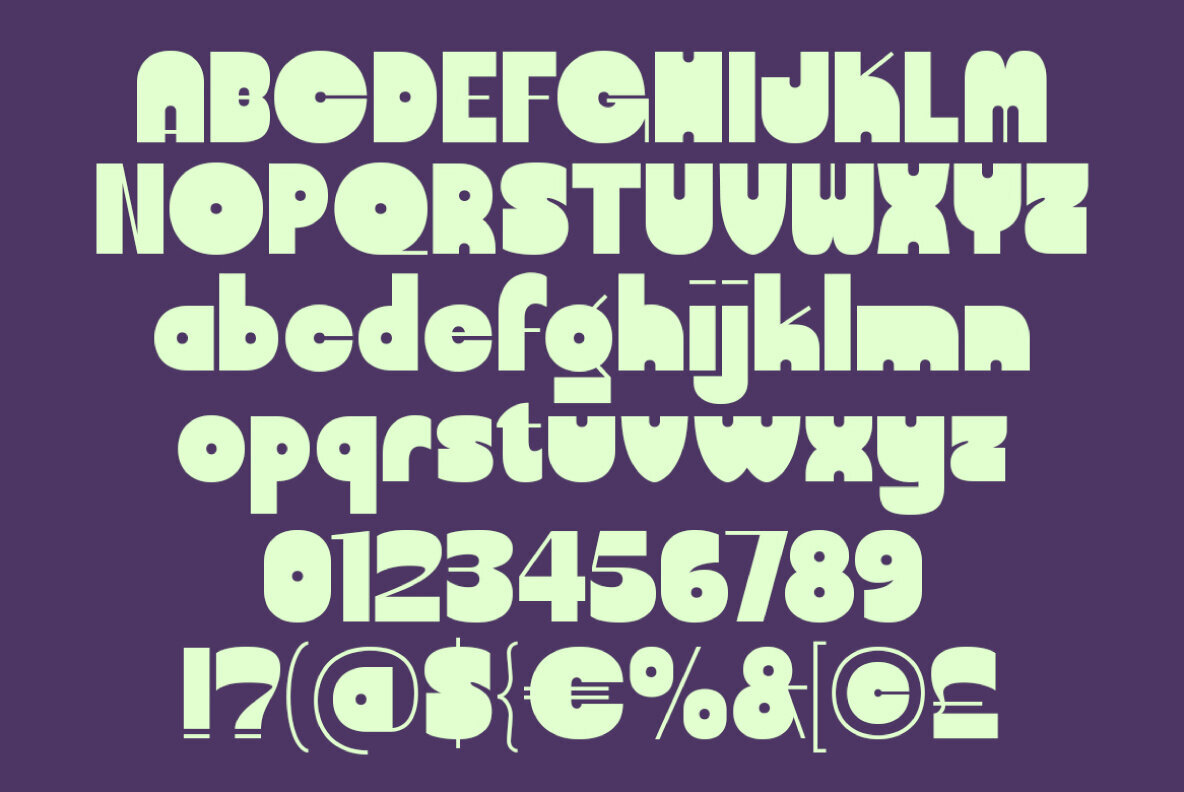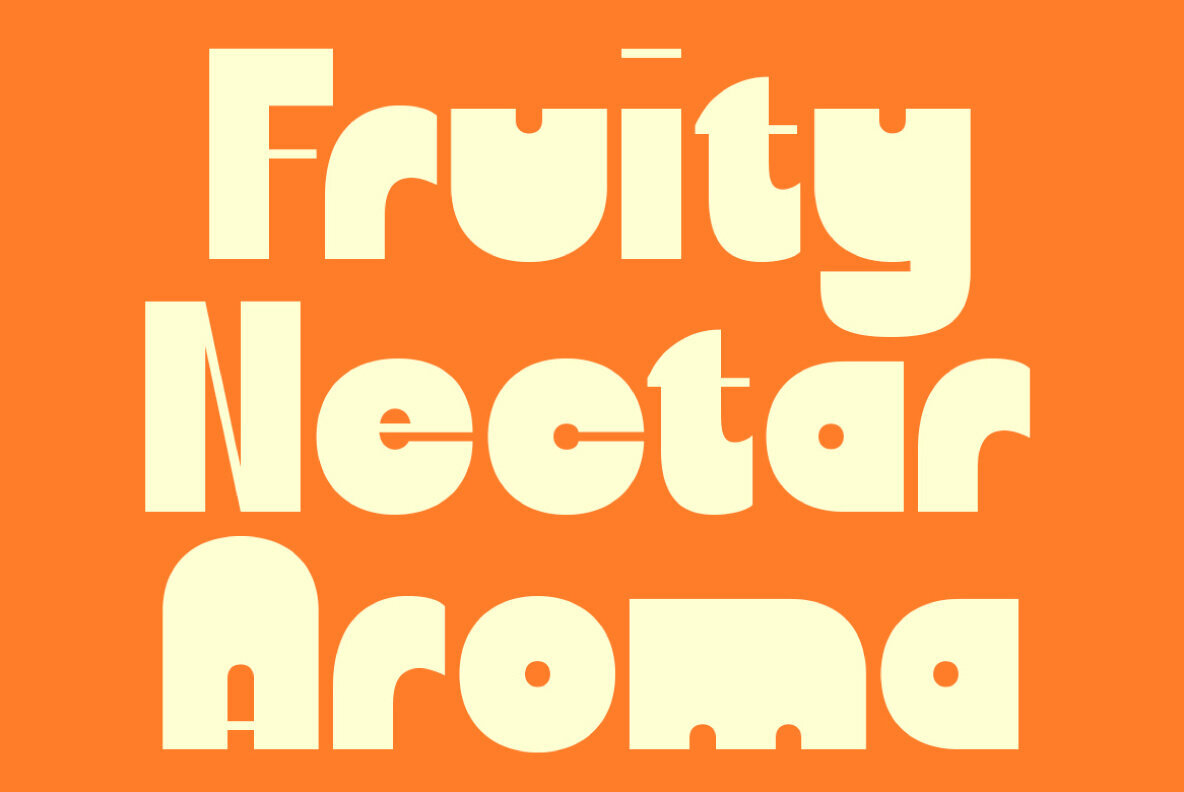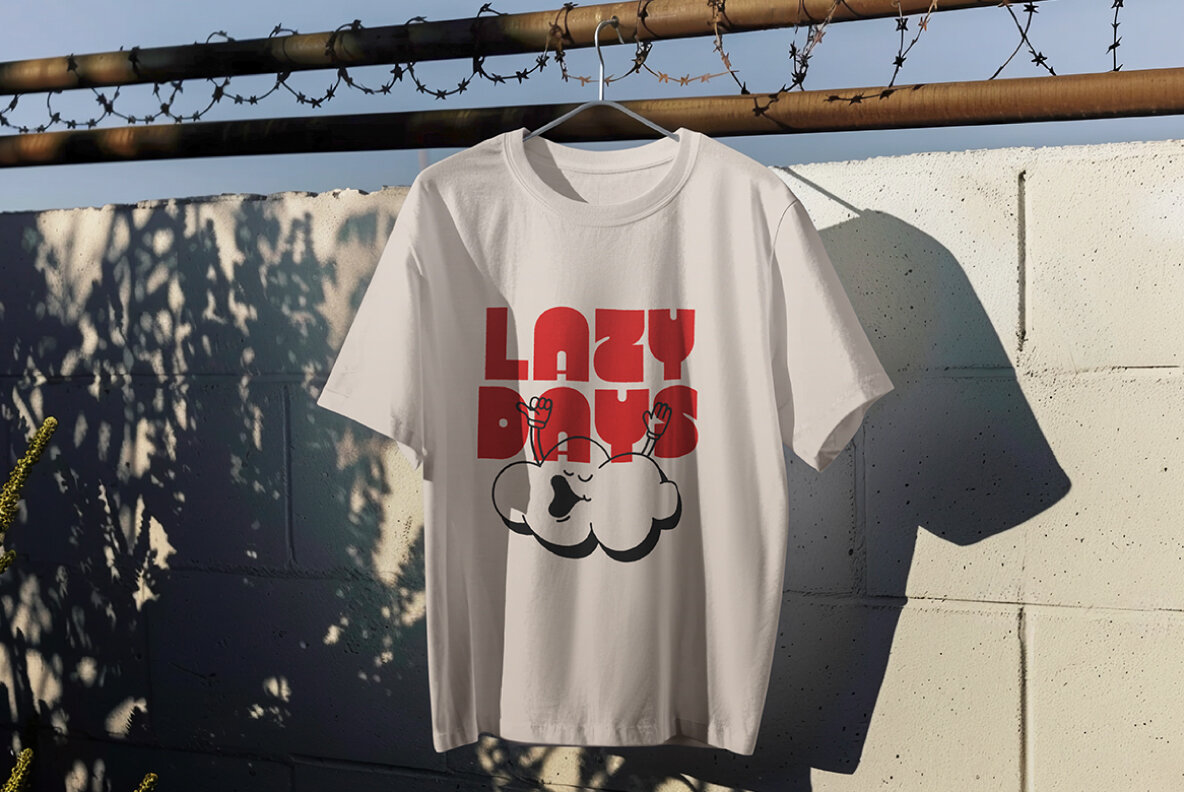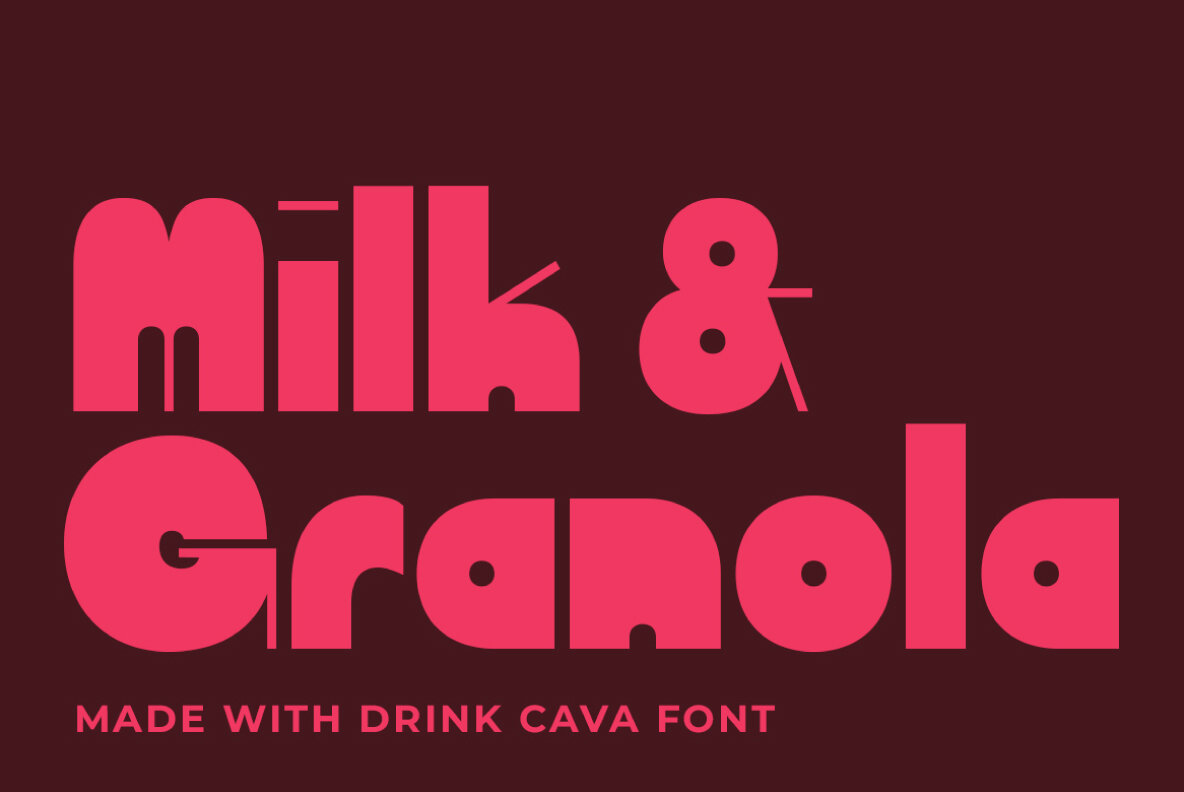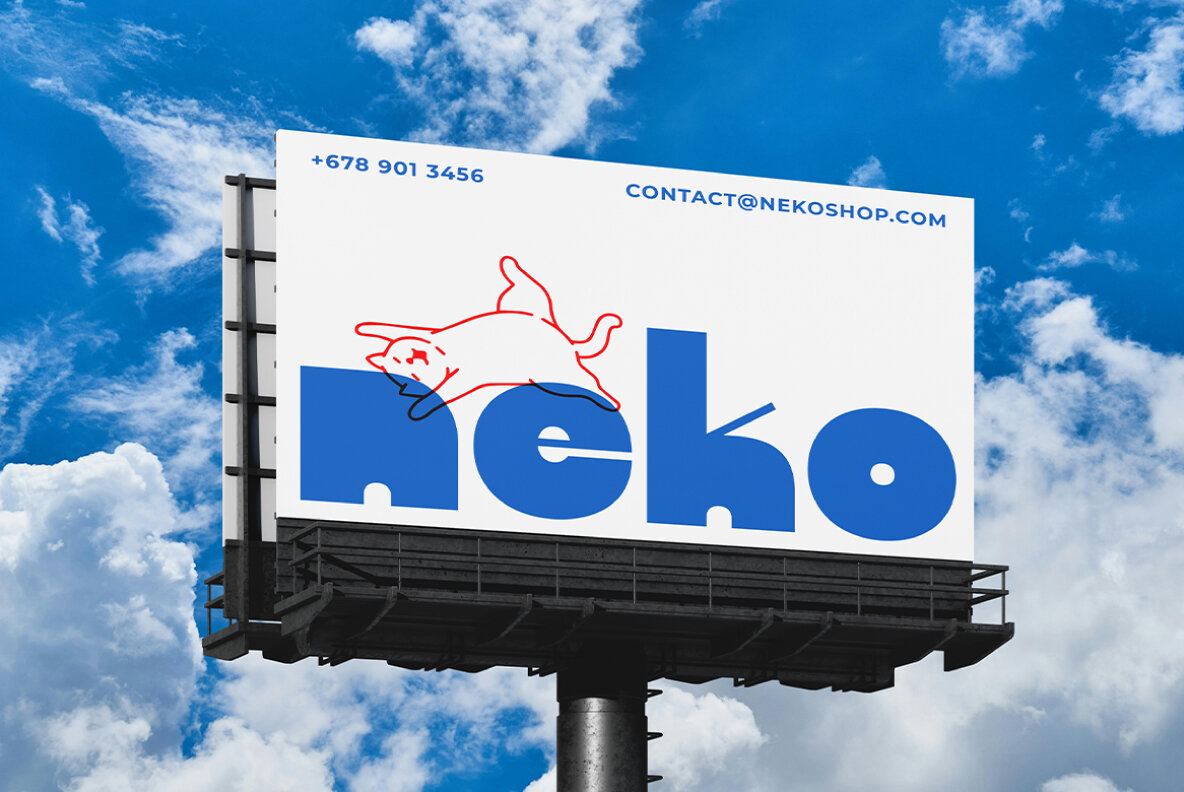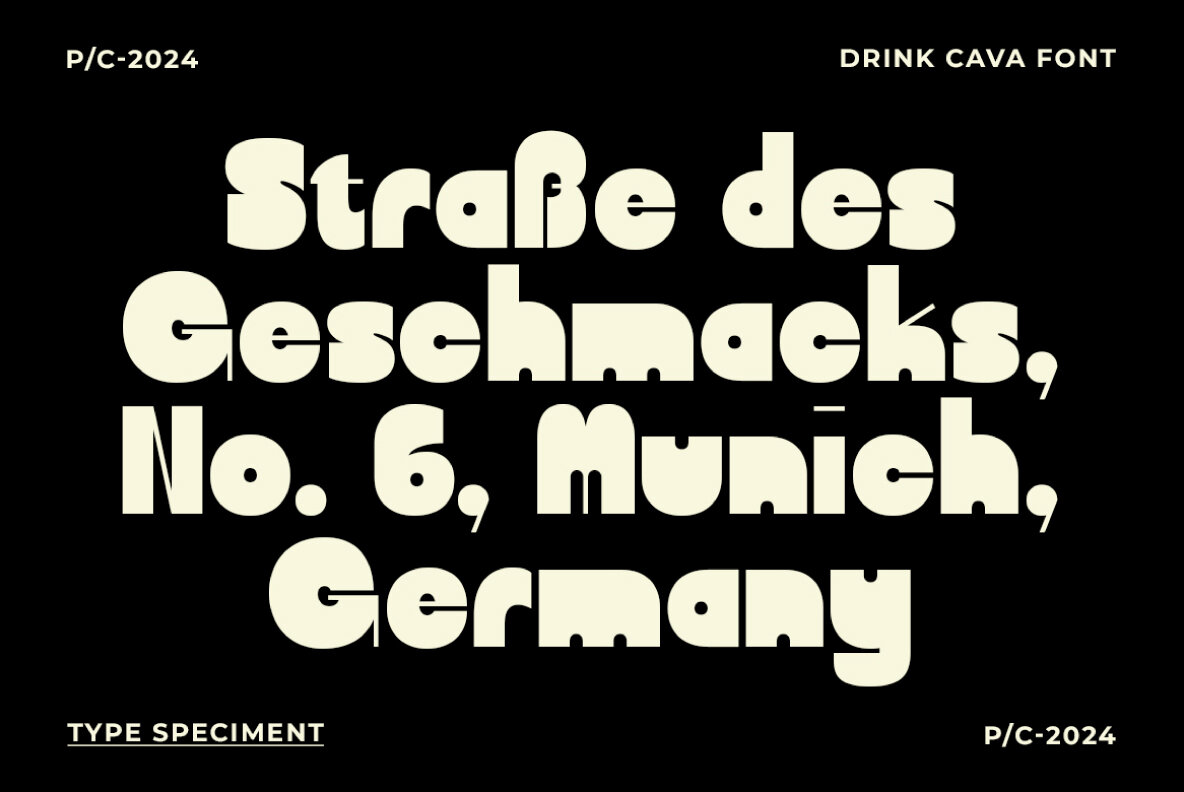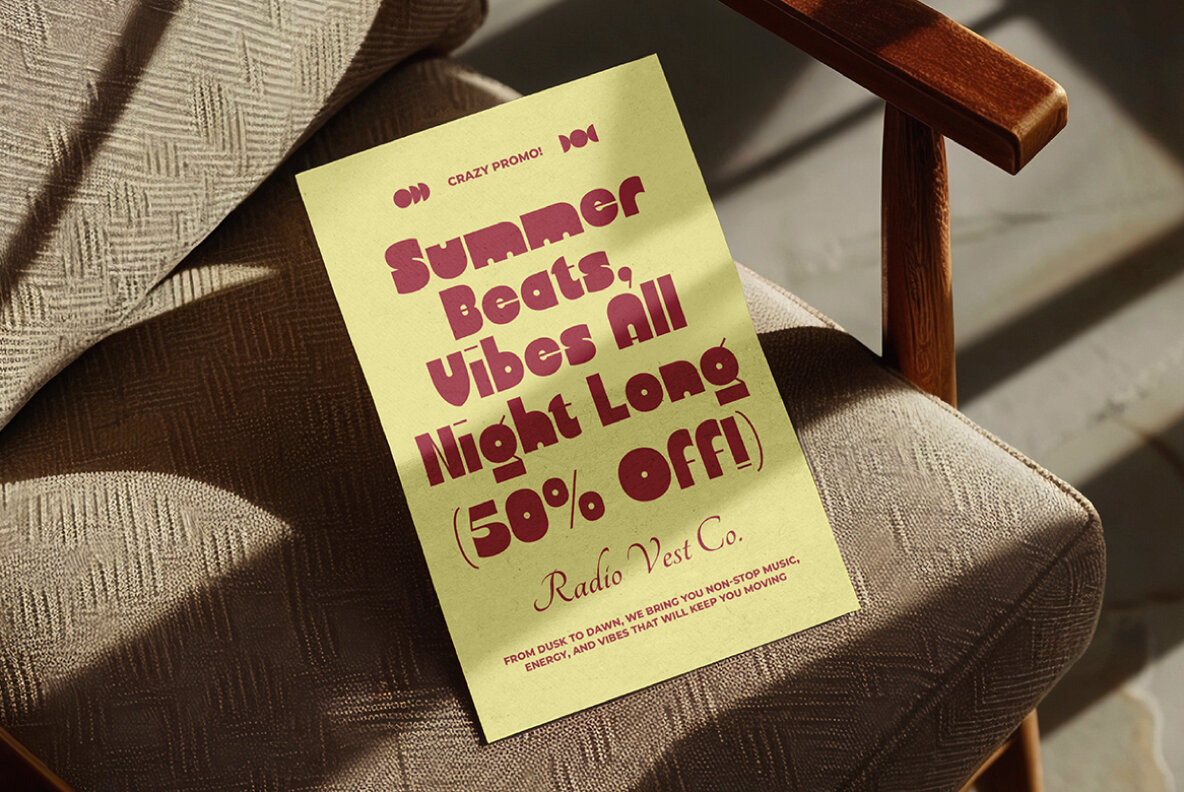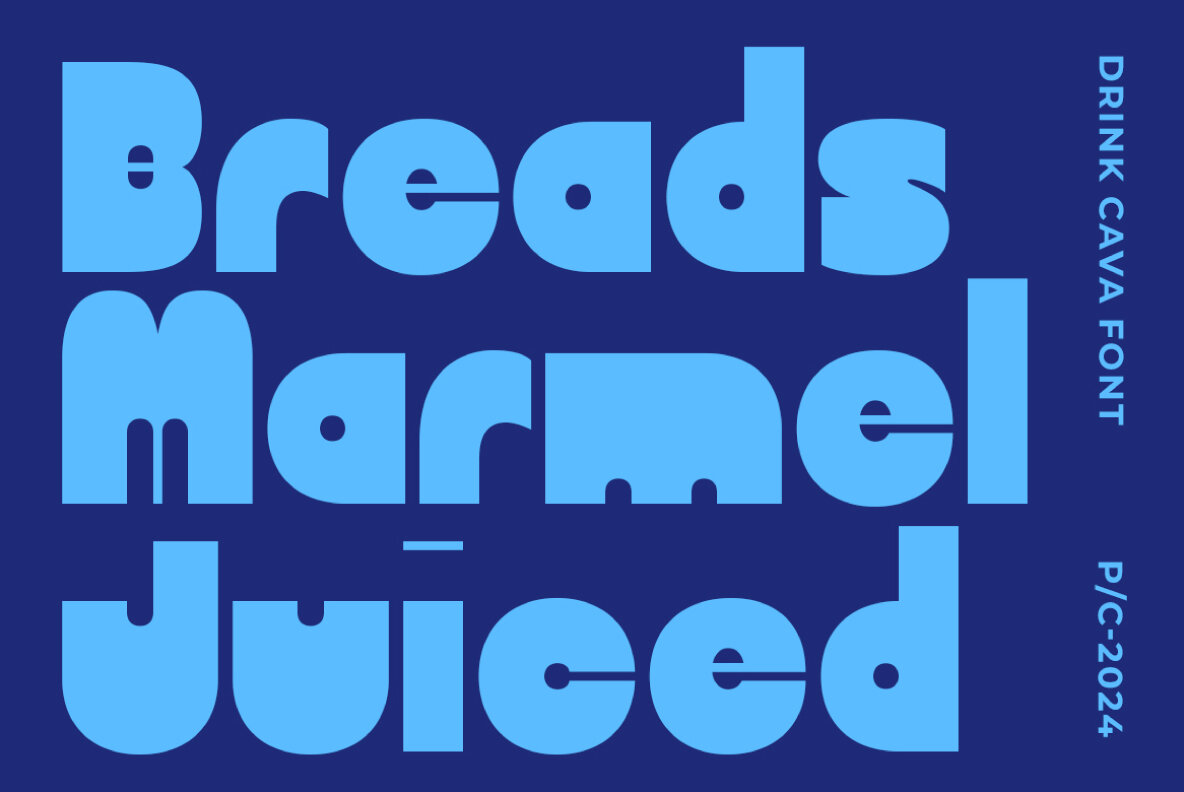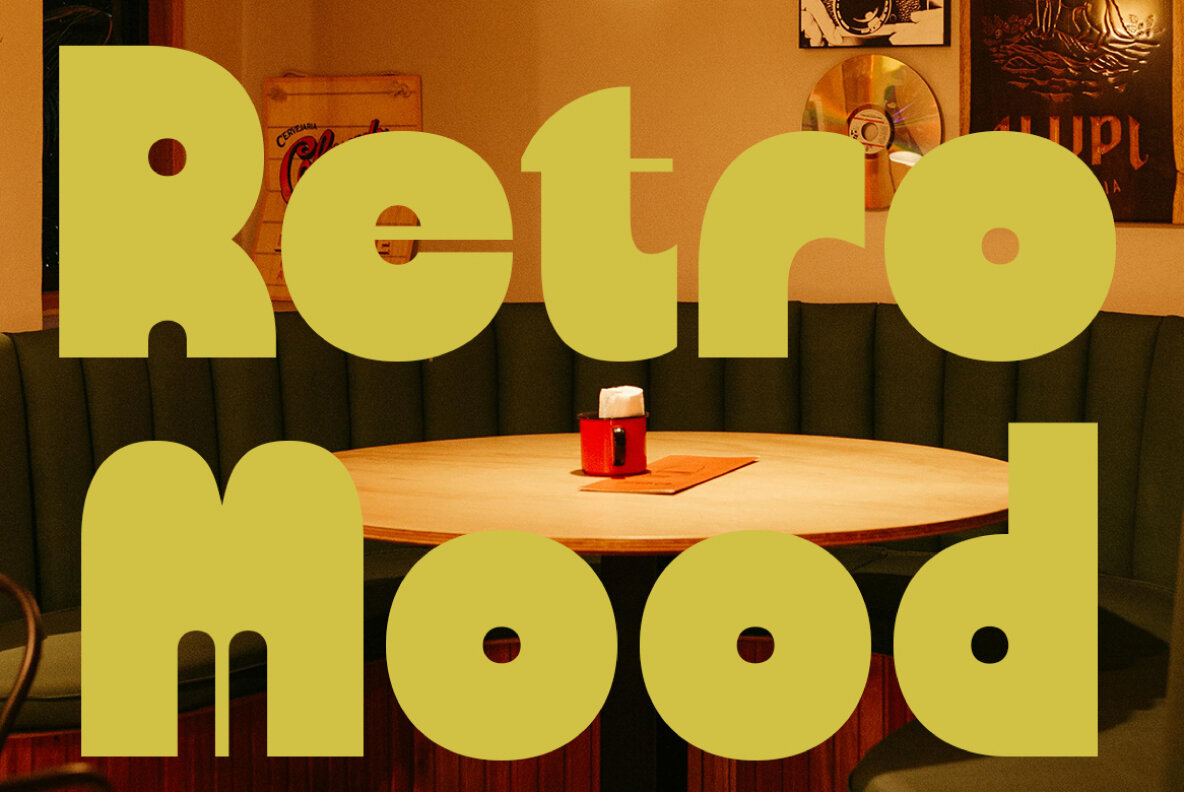
Drink Cava Font
Drink Cava
Drink Cava brings a boldness to your design projects with its unique slim details on select characters. This font exudes a retro-modern aesthetic, making it an ideal choice for creating eye-catching posters, striking branding materials, and distinctive logos. Its playful yet daring style effortlessly captures attention and adds a touch of personality to any creative endeavor.
Offering extensive functionality, Drink Cava includes uppercase and lowercase letters, numerals, and punctuation, with robust multilingual support. It caters to a wide array of languages, ensuring versatility and applicability in diverse design settings. Whether crafting materials in English, Spanish, German, or languages like Afrikaans, Zulu, and Filipino, this font's capabilities make it a valuable asset for designers seeking both creativity and broad linguistic reach.